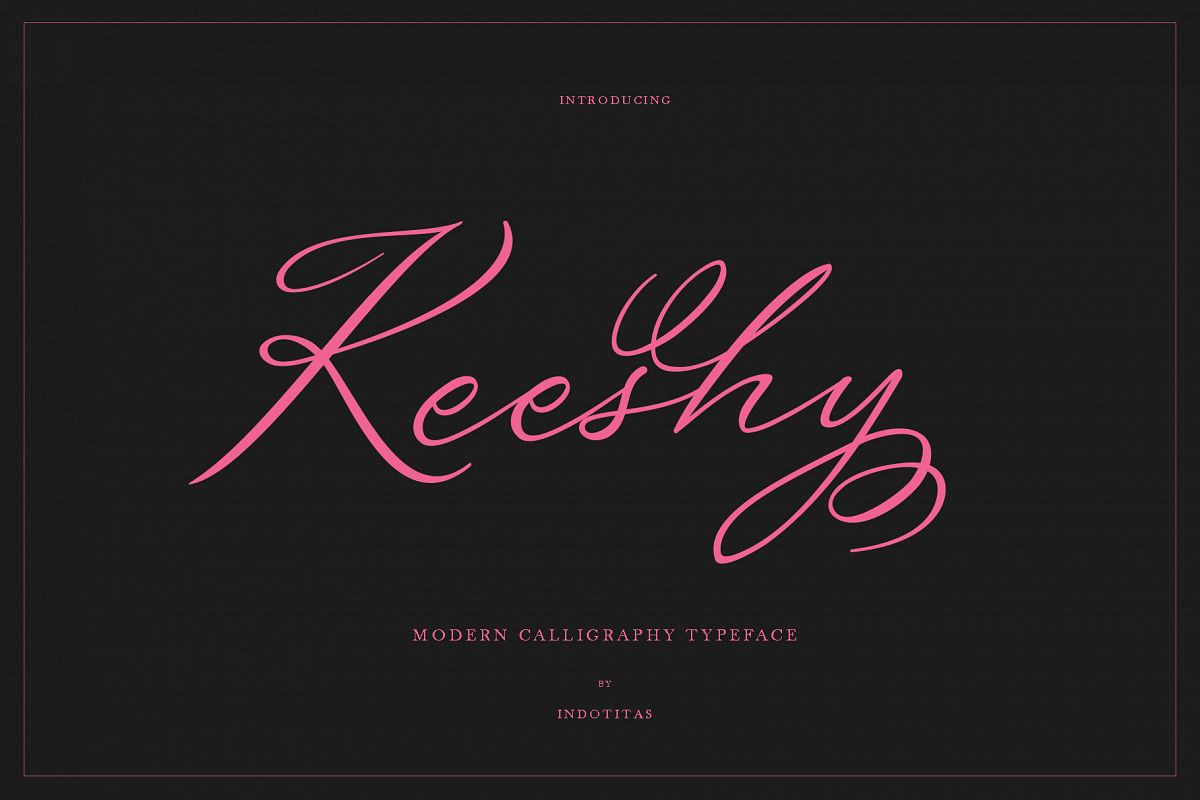
Keeshy
Introducing of our new product Keeshy Modern Calligraphy Typeface
Inspired by modern and stylish calligraphy, perfect for many different project such as logos & branding, invitation, stationery, wedding designs, social media posts, advertisements, product packaging, product designs, label, photography, watermark.
• Basic Latin A-Z and a-z
• Number & Punctuation
• 52 Alternates Character
• Extended Latin Character
• Supported with contextual alternates mode
• Opentype Feature
• PUA Encode
• Multingual Support